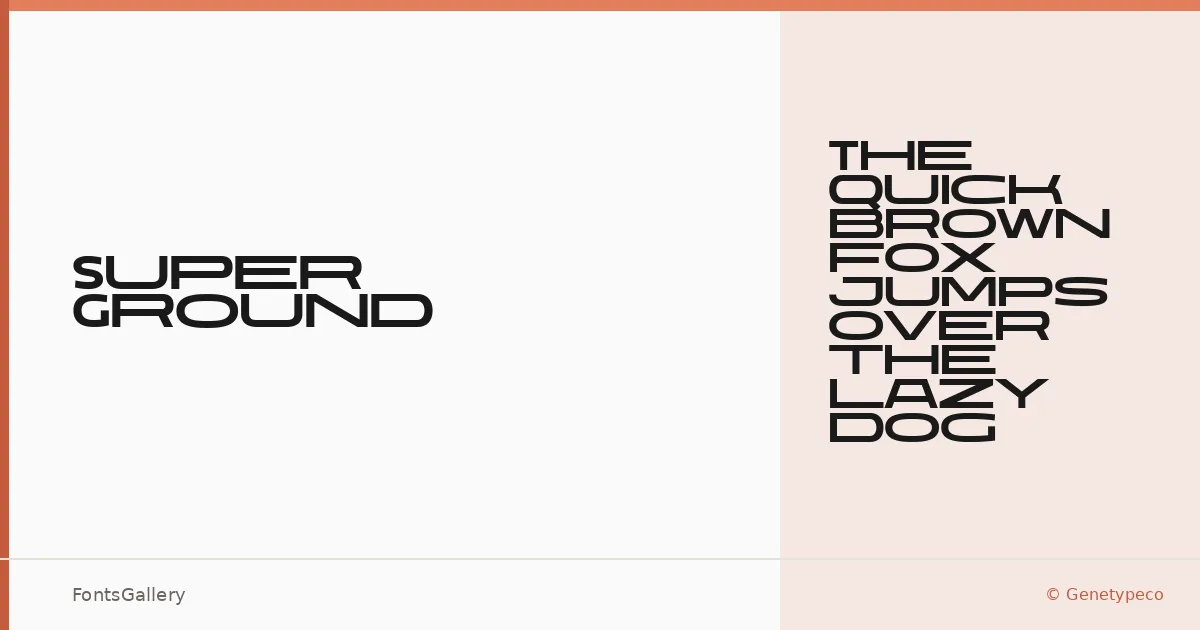
About Super Ground Font
There is a forward-leaning confidence to this display face — the kind of weight and presence that signals it was built for large, deliberate settings rather than body copy. Super Ground is a single-cut display family designed by Genetypeco, offered here in Regular. The letterforms carry a futuristic edge without sacrificing the structural clarity that makes a headline legible at a glance.
The typeface sits squarely in the display category, drawing on a bold, modern sensibility that feels at home in the professional end of the spectrum. Available in TTF and OTF formats, the single Regular weight is unambiguous in its purpose — this is a face you set large, not small. The forms read as constructed rather than calligraphic, with a precision that reinforces its futuristic character.
Branding identities, posters, logo lockups, and T-shirt graphics are the natural territory here — contexts where a headline needs to hold space and project authority. When you need to balance it with a supporting typeface, it has been tested alongside Helvetica, Canela, Asap, ABC Arizona, and Josefin Sans, each of which provides a useful counterpoint to its weight and geometry.